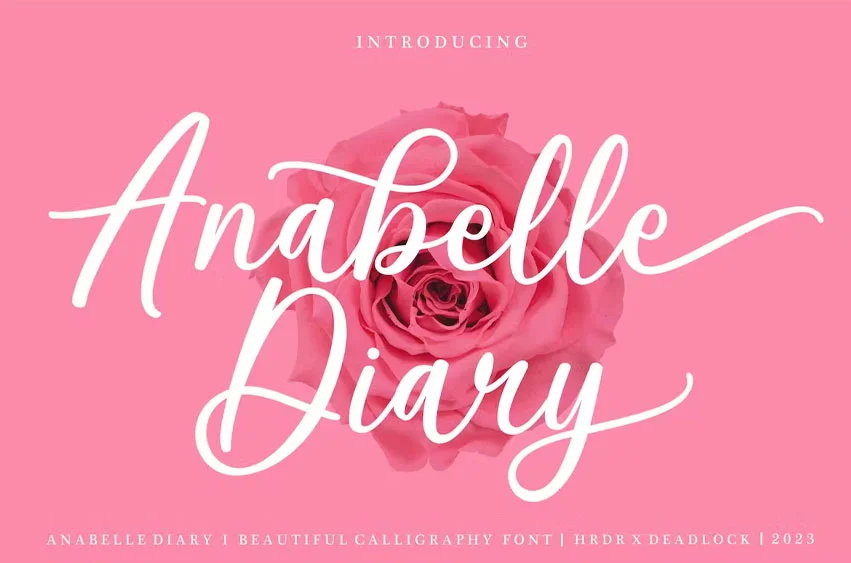
Anabelle Diary Font is a modern and Beauty Calligraphy font. It’s perfect for branding, wedding invitations, photography, Neon Sign, bloggers, logos, greeting cards, Logo, Quotes and more.
Font Features :
- Uppercase
- Lowercase
- numeric & Multilingual support
- Stylistic Alternates with (Ss01,Ss02, and Ligatures)
Anabelle Diary Font Preview